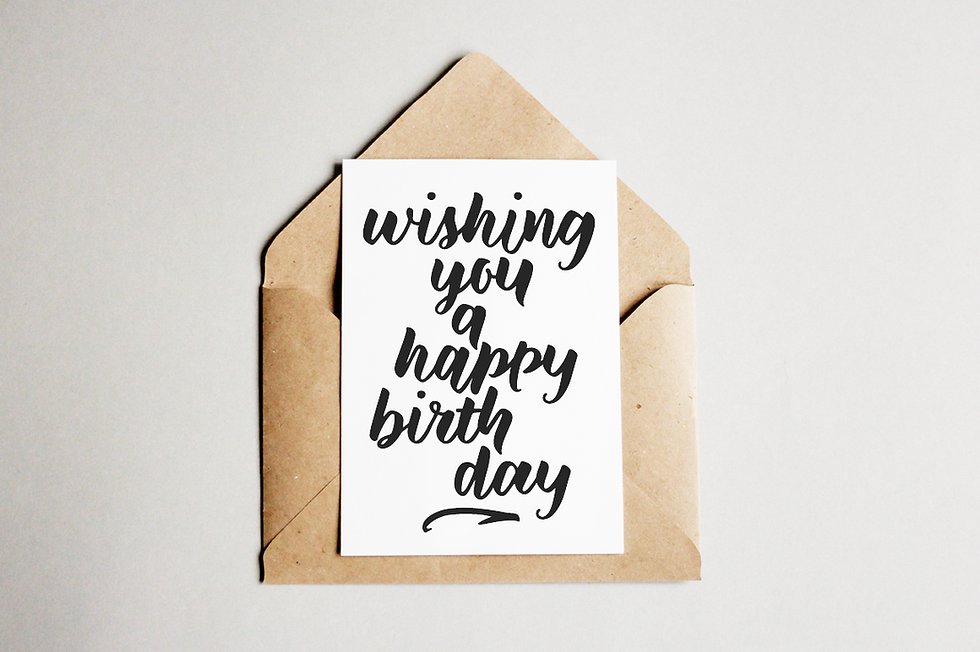
Wild Creatures is a bold brush font, in three variations, with:
A-Z, a-z, 0-9, accents, punctuation and symbols
Ligatures
All Caps alternate set
Bonus Swashes
It's perfect for all your modern designs (quotes, branding, postcards, etc).
Wild Creatures brush font family